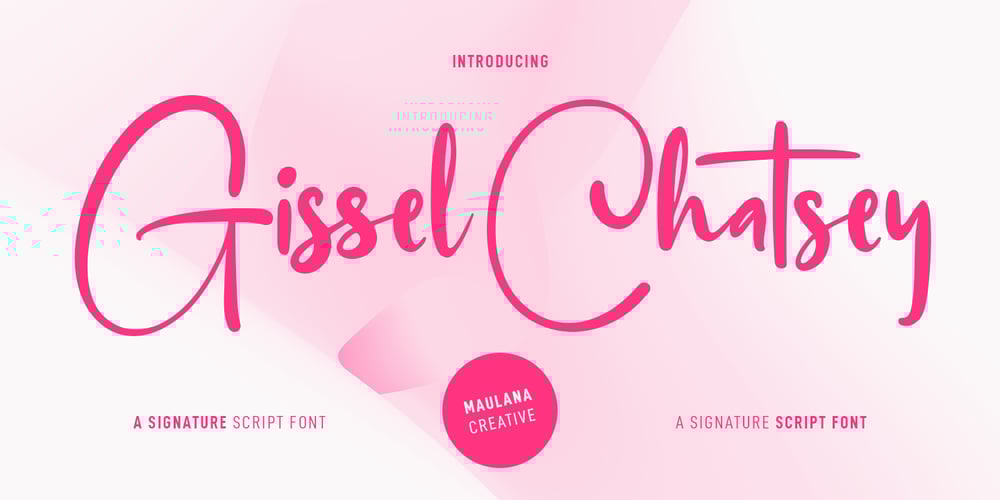
Gissel Chatsey Font Family was designed by Gilang Maulana and published by Maulana Creative. Gissel Chatsey contains 1 styles and family package options. Gissel Chatsey is a casual handwritten script font. With medium contrast stroke, fun character with a bit of ligatures and alternates. To give you an extra creative work. Gissel Chatsey font support multilingual more than 100+ language. This font is good for logo design, Social media, Movie Titles, Books Titles, a short text even a long text letter and good for your secondary text font with sans or serif. Make a stunning work with Gissel Chatsey font. Cheers, Maulana Creative